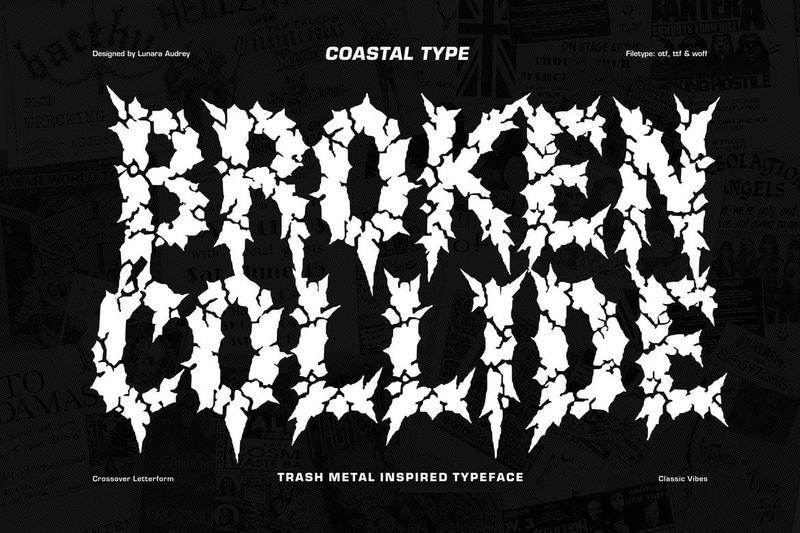
**Broken Collide** is a brutal display typeface inspired by trash metal logos, underground band flyers, and crossover letterform aesthetics. Built with sharp fractured shapes, aggressive cuts, and chaotic broken details, this font brings a loud, raw, and rebellious energy to every design.
The letterforms are bold and heavy, with irregular cracked edges that give a destructive handmade feel while still keeping a strong visual structure. Perfect for any design that needs an extreme underground attitude.
* Uppercase & Lowercase
* Numerals & Punctuation